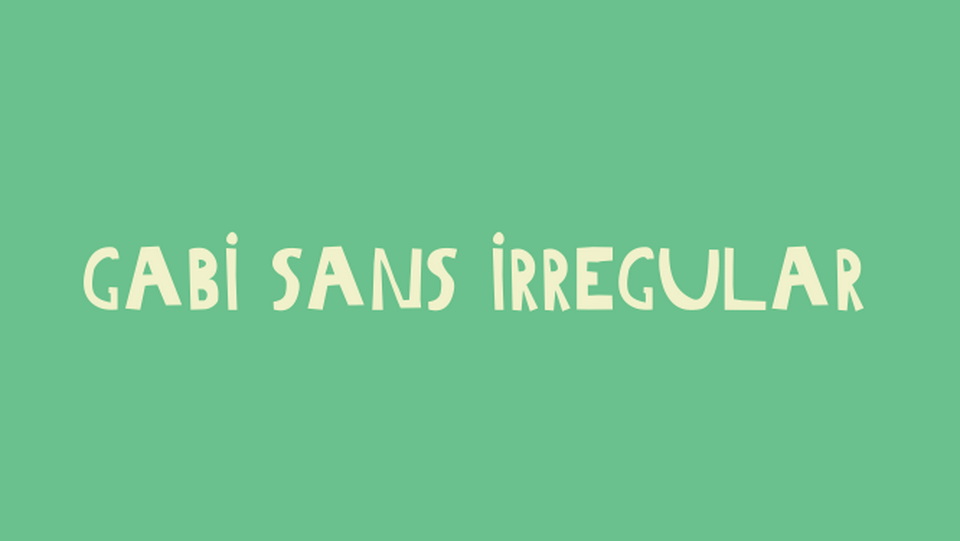
Download Gabi Sans Irregular font, a decorative typeface inspired by real hand drawn letters. The font has uppercase letters, numerals and various special characters.
Designer: Rafael Hoffmann